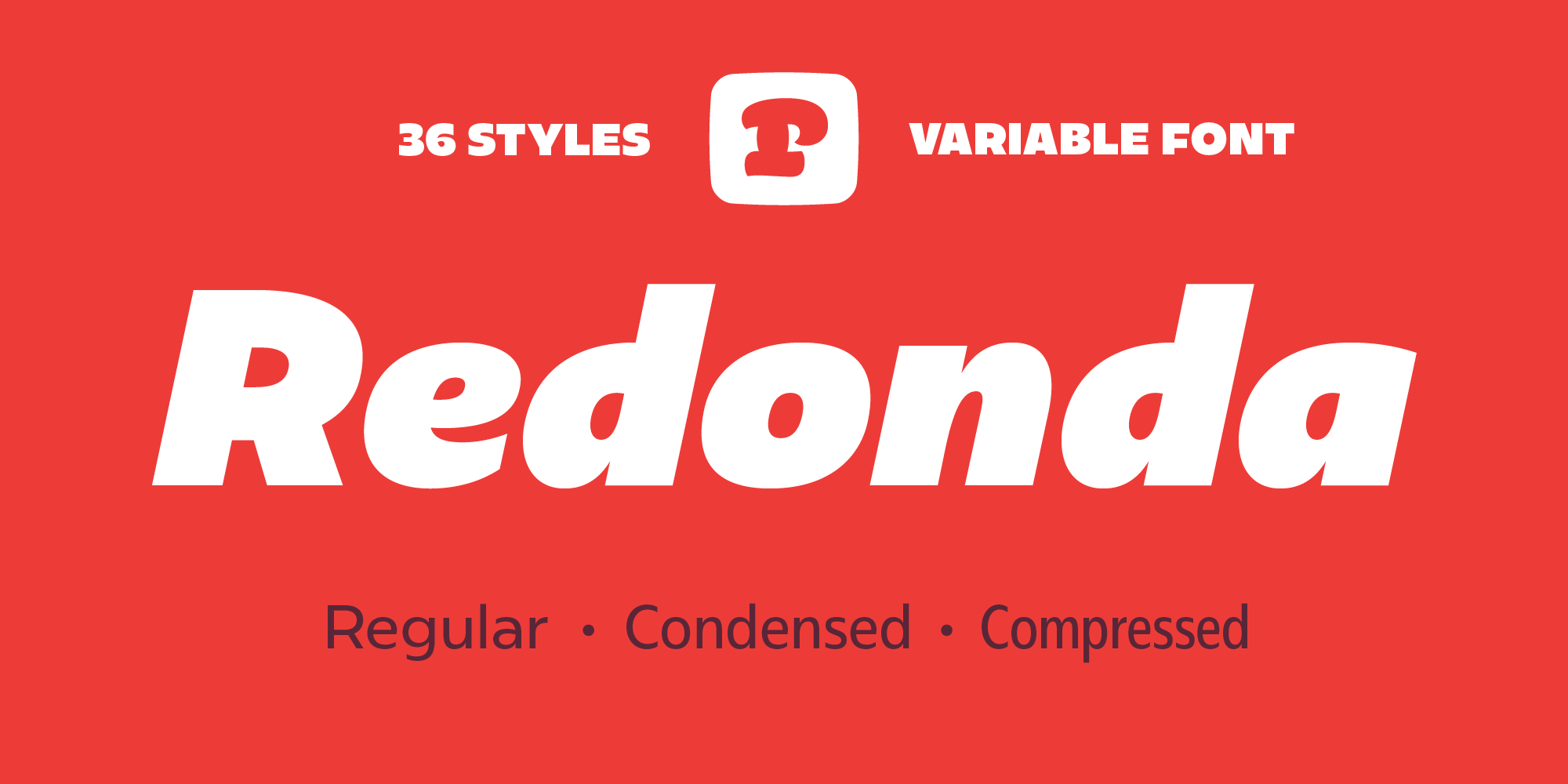
Plau Redonda Font is a sleek, exceptionally modern, and wonderfully approachable typeface, perfectly suited for projects that demand pristine clarity, contemporary minimalism, and a friendly, softened edge. Imagine it forming the crisp typography for innovative tech interfaces, providing clear and inviting text for user-friendly mobile applications, or enhancing the readability of engaging online content and digital reports. It's also an excellent choice for crafting impactful headlines in advertising campaigns, designing effective and intuitive branding for startups, or bringing a reliable and structured yet amiable presence to extensive digital documents and e-commerce platforms. If you're looking for a font that combines a strong visual presence with exceptional legibility and a touch of warmth, Plau Redonda Font is an outstanding selection.
What makes Plau Redonda Font so exciting? It’s its meticulous design, balancing geometric precision with subtle, harmonious rounded terminals, which allows it to be incredibly adaptable for a wide array of applications where both professionalism and approachability are key. This font boasts expertly crafted letterforms and optimized spacing that ensure exceptional readability across various sizes and mediums, from crisp digital displays to high-resolution printed materials. Its clean lines, neutral yet inviting character, and modern appearance allow it to integrate seamlessly into diverse design ecosystems, supporting content without distraction while conveying a forward-thinking and genuinely human sensibility. Designers will appreciate its understated elegance and its ability to lend an air of sophistication and modernity to any project, making it a highly dependable choice for achieving a polished and engaging outcome.
The Plau Redonda Font family is typically designed with a comprehensive range of weights and styles to provide maximum flexibility for designers, often boasting an extensive character set suitable for global applications. You can generally expect to find numerous variations such as Thin, Light, Regular, Medium, SemiBold, Bold, and Black, accompanied by matching italic versions for each. This extensive family ensures that Plau Redonda Font can be used to create sophisticated typographic hierarchies, maintain consistent branding across diverse mediums, and offer flexible design solutions for both print and digital environments. Discover the unwavering clarity and contemporary style of Plau Redonda Font Free Download for your next design endeavor.